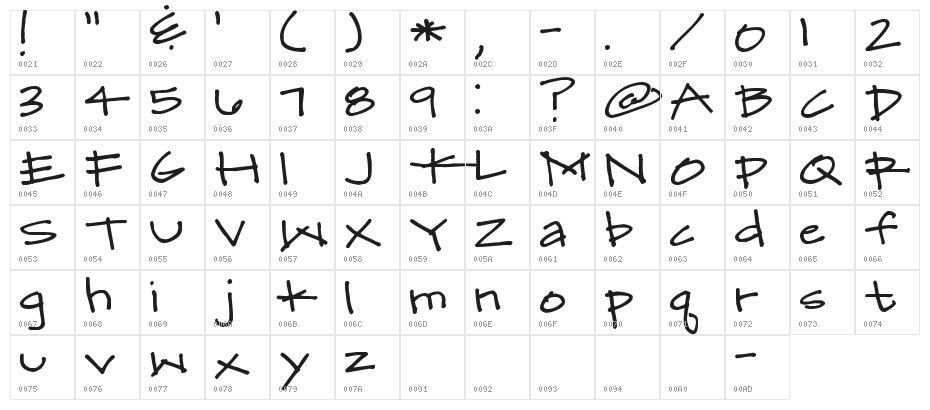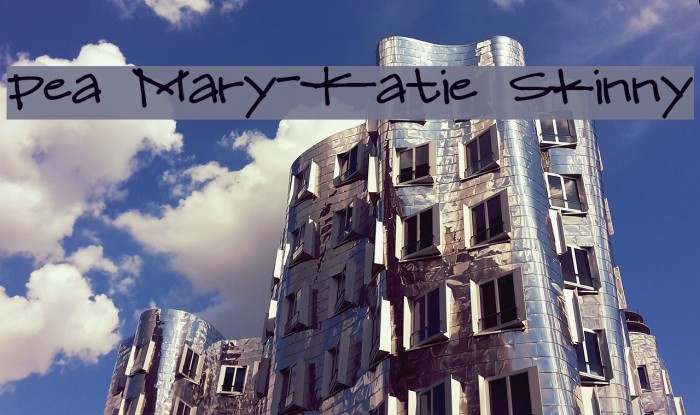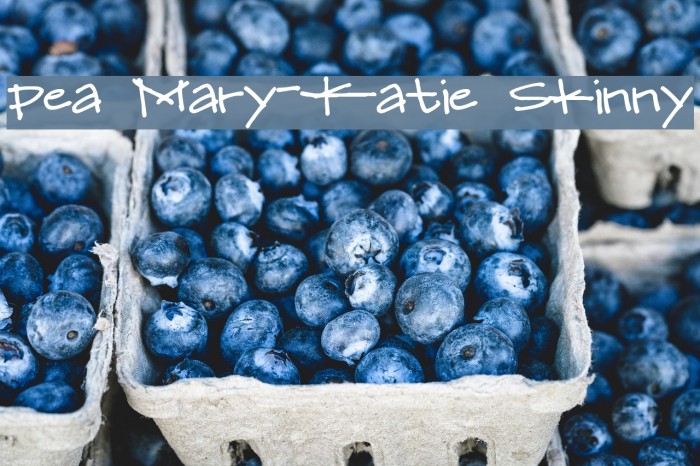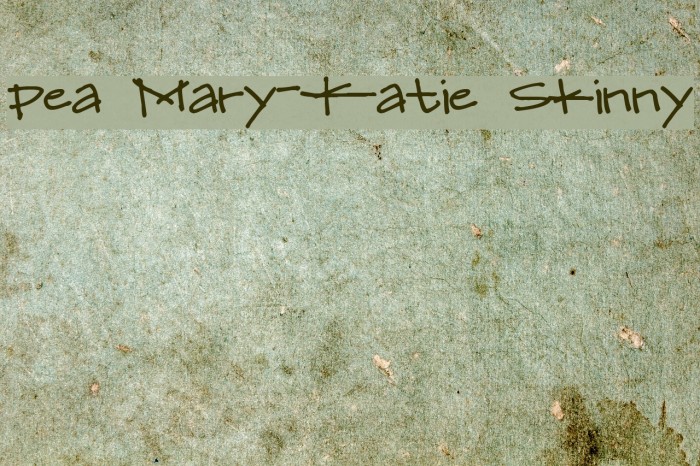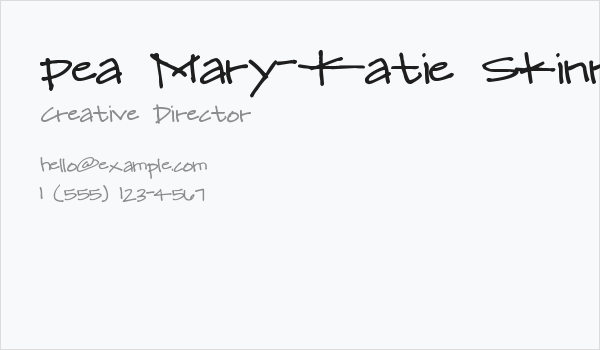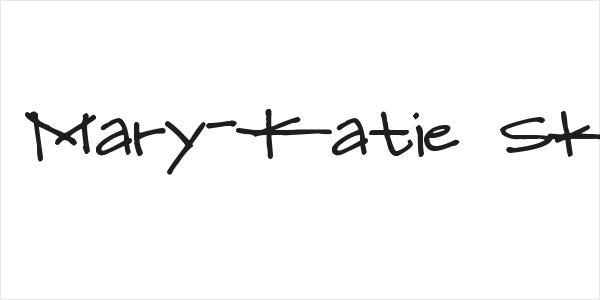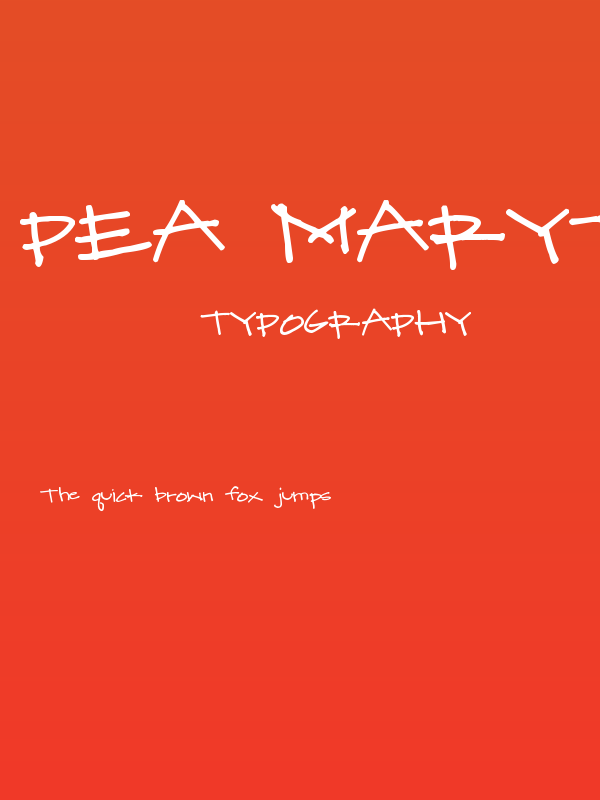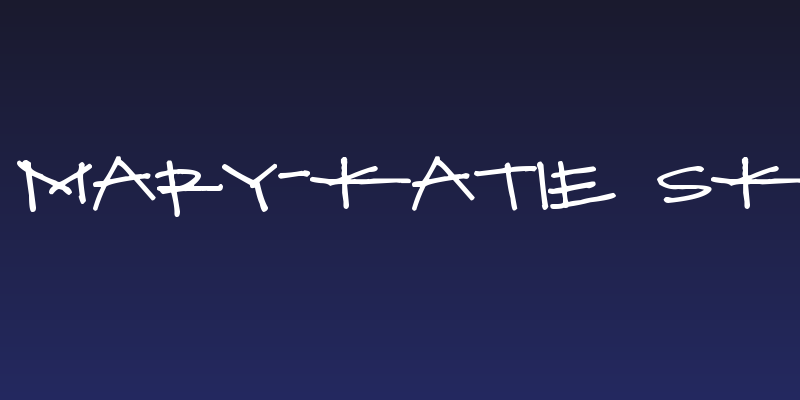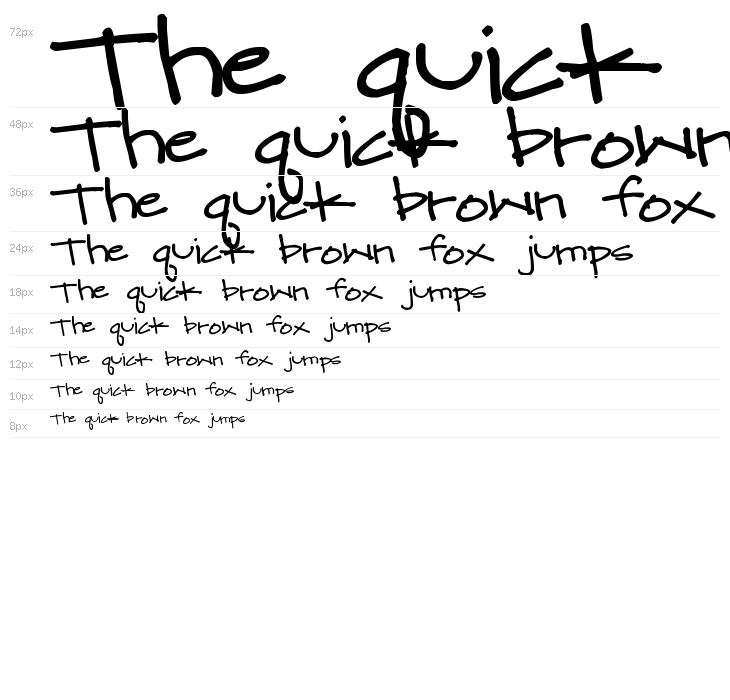
Pea Mary-Katie Skinny Font
Pea Mary-Katie Skinny Description
This font exudes a playful and casual vibe, characterized by its handwritten style. The letters are uneven and slightly tilted, giving it a personal and informal touch. The strokes are consistent in thickness, with a slight variation that adds to the handwritten feel. The characters are well-spaced, ensuring readability while maintaining a relaxed appearance. The font includes a full set of uppercase and lowercase letters, numbers, and a variety of special characters, making it versatile for different uses. Its unique style makes it suitable for projects that require a personal or creative touch.
| Use Case | Logos, Invitations, Personal notes |
| Proposed Projects | Ideal for greeting cards, personal notes, creative projects, and informal branding. |